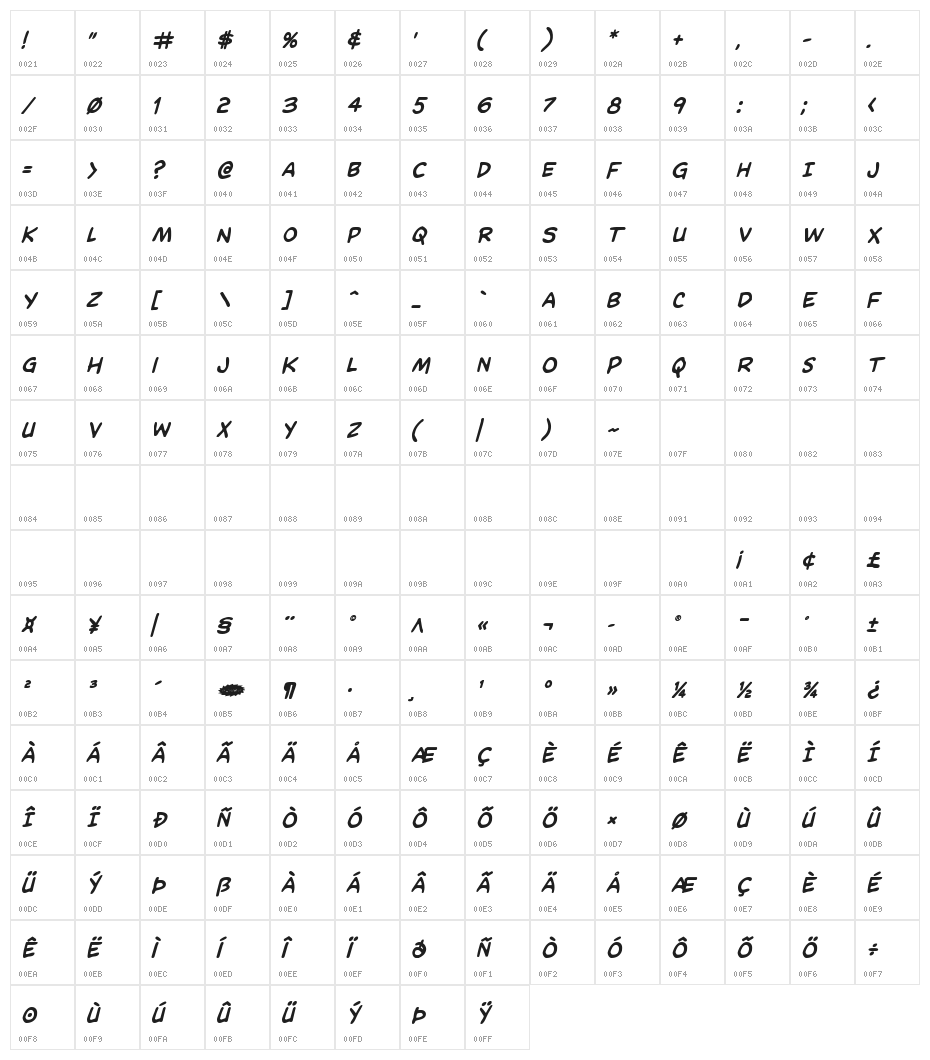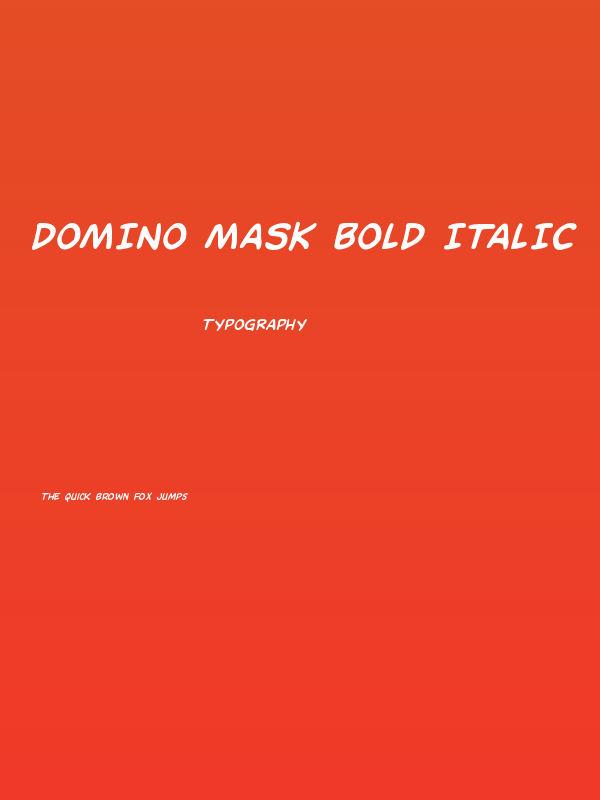
Domino Mask Bold Italic Font
Domino Mask Bold Italic Description
This font features a bold and italicized style with a playful, handwritten appearance. The characters are slightly slanted, giving a dynamic and energetic feel. The strokes are thick and consistent, providing a strong presence on the page. The uppercase and lowercase letters maintain a cohesive look, with rounded edges and a smooth flow. Numbers and special characters are designed to match the overall style, ensuring uniformity across all text elements. This font is ideal for projects that require a casual and approachable aesthetic.
| Proposed Projects | Great for comic books, children's books, playful branding, and casual invitations. |